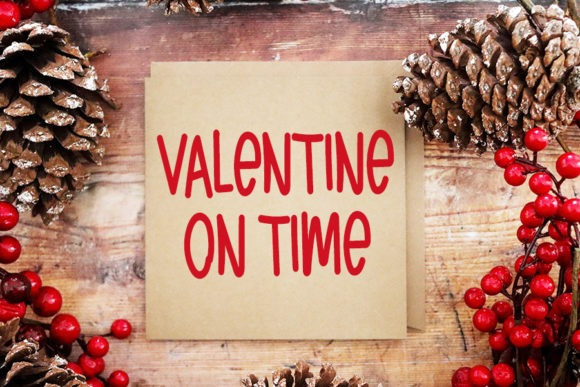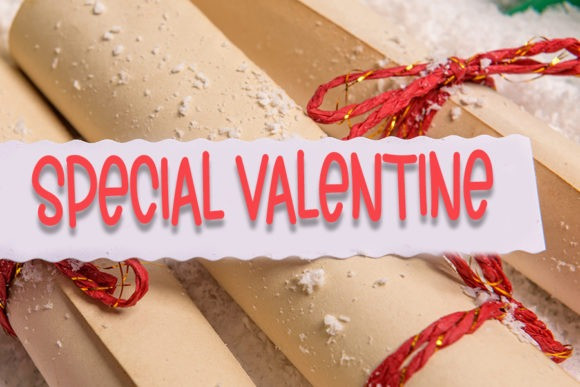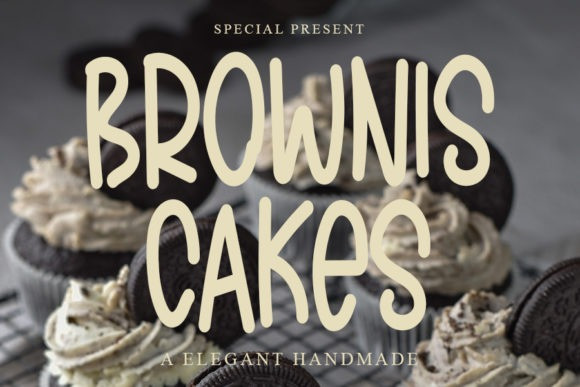
Brownis Cakes Font
Brownis Cakes Display Font is a sweet and quirky handwritten font. Dainty and joyful, this font will be ideal for writing neat cards or any other design that may need a personalized touch!